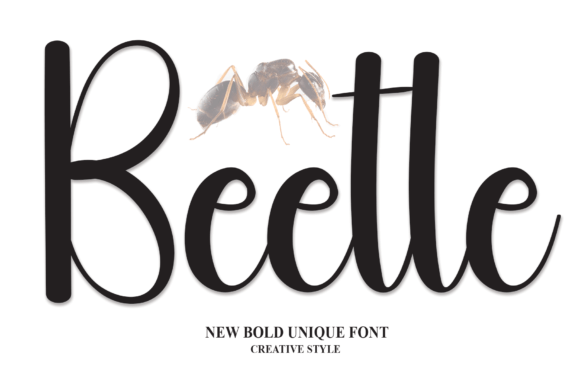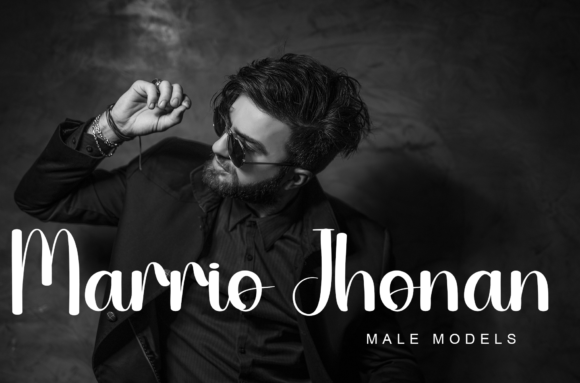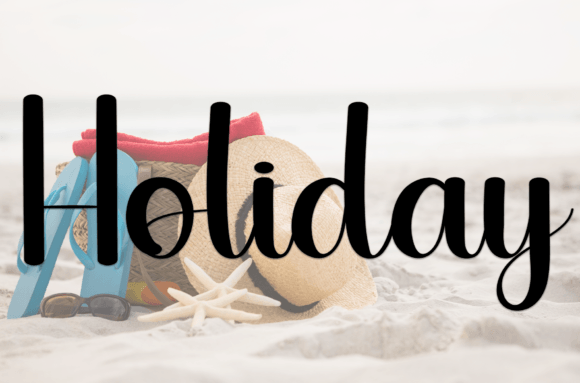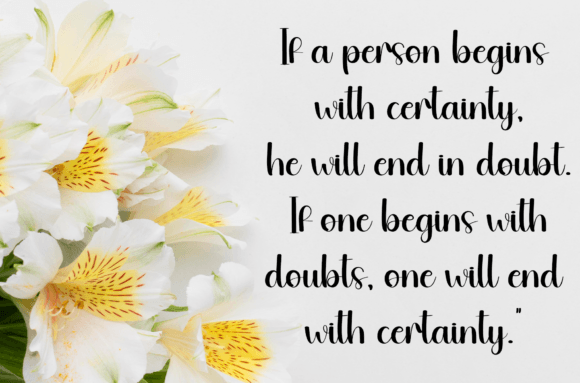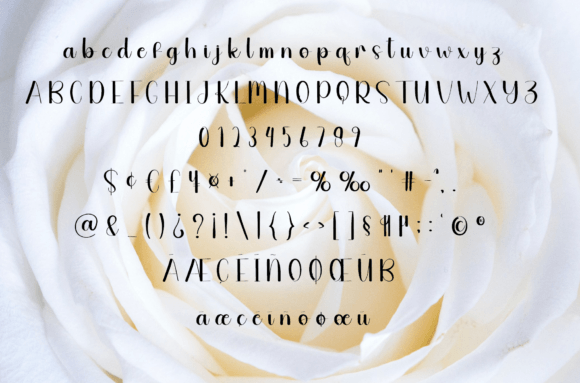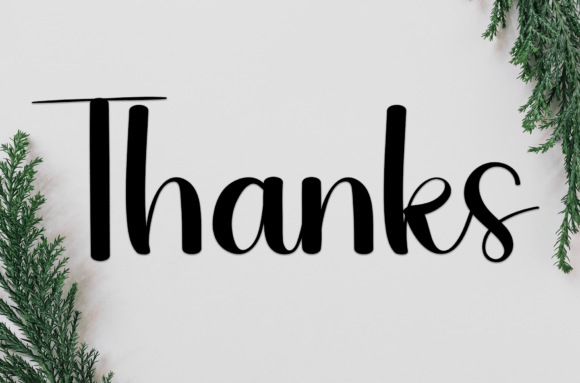
Beetle Font
About Beetle Font
Beetle Font is a sweet and friendly handwritten typeface designed to bring a warm and relaxed feel to your projects. Its playful style and smooth curves make it an excellent choice for designs that need a touch of charm and personality. Whether you are designing wedding invitations or creating social media graphics, Beetle Font will help your words feel sincere and engaging.
A Warm and Relaxed Handwritten Look
Beetle Font has a soft, casual appearance that feels fresh and approachable. Each letter looks as if it was written by hand, adding authenticity to your text. This style makes any message feel more personal and inviting. Use Beetle Font when you want your words to connect with your audience in a genuine way.
The smooth strokes and balanced proportions of the letters ensure great readability, even in longer passages or smaller sizes.
Perfect for Weddings and Special Events
This font is especially popular for wedding-related designs and celebration stationery. Its friendly style is perfect for:
• Wedding Invitations: Announce your big day with elegance and sweetness.
• Save-the-Date Cards: Make your event feel warm and unforgettable.
• Thank You Notes: Show your gratitude in a heartfelt way.
• Party Invitations: Create memorable and joyful cards for any occasion.
Beetle Font helps your special moments feel extra personal and beautifully designed.
A Great Choice for Branding and Small Business
If your brand wants to feel approachable and modern, Beetle Font is a great option. Use it to bring a relaxed, welcoming style to:
• Logos and Labels: Add a hand-crafted feel to your branding.
• Product Packaging: Make your products stand out on the shelf.
• Social Media Posts: Share your messages with a friendly voice.
• Marketing Materials: Design banners and flyers that feel inviting and cheerful.
Its versatility means it fits seamlessly with both playful and more refined design themes.
Add Joy and Heart to Every Design
Beetle Font is more than just a typeface—it’s a way to express warmth and friendliness in everything you create. From wedding stationery to business branding, Beetle Font helps you tell your story with style and heart.
When you want a handwritten look that feels relaxed and genuine, this font is a perfect fit. Let Beetle Font inspire your creativity and bring a lovely, personal touch to every design.